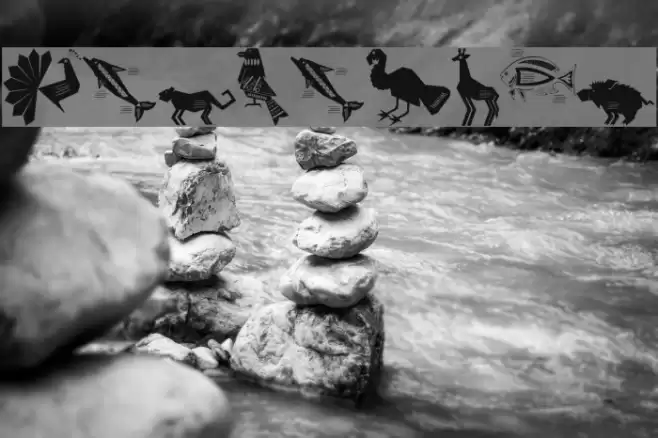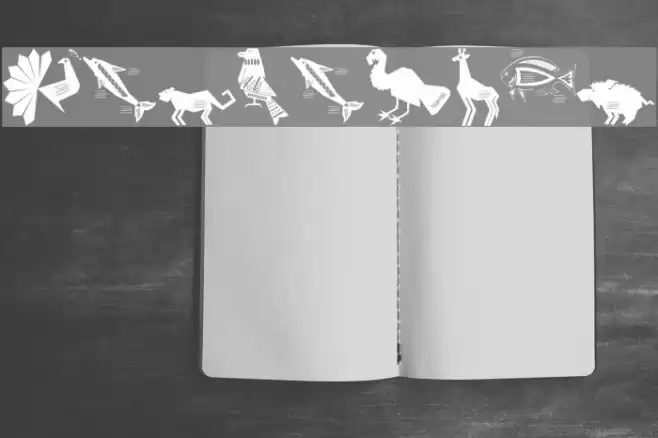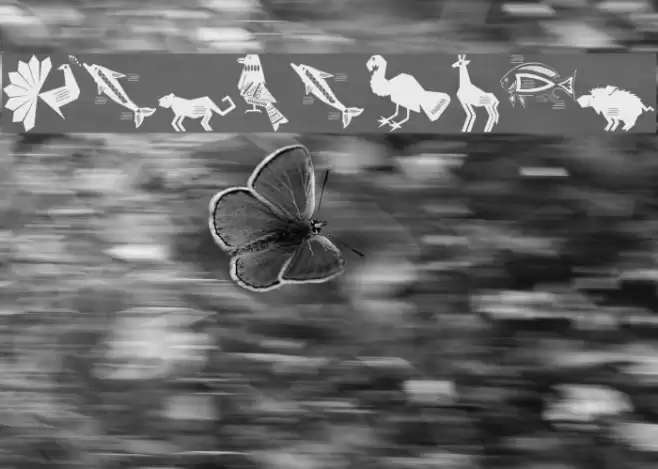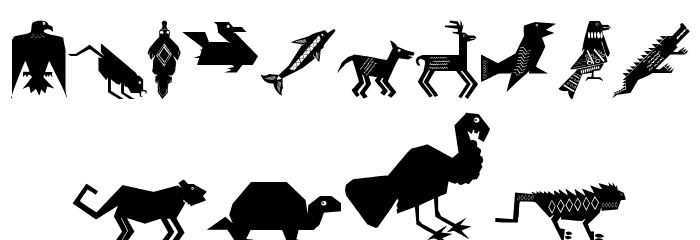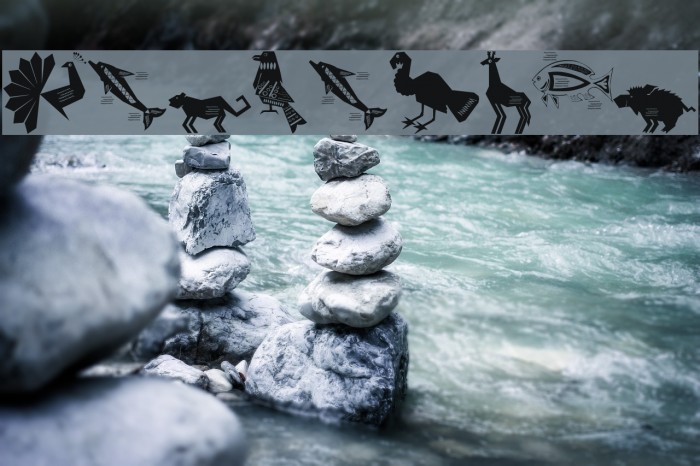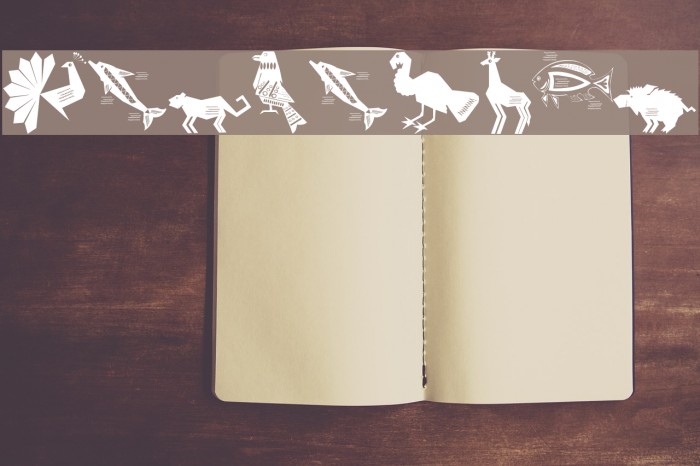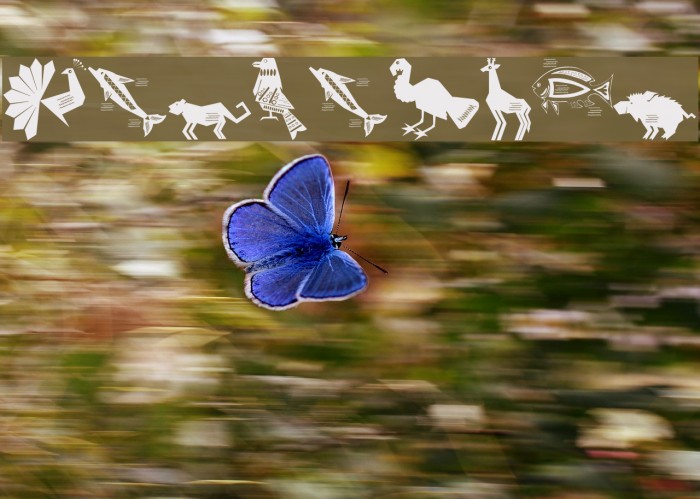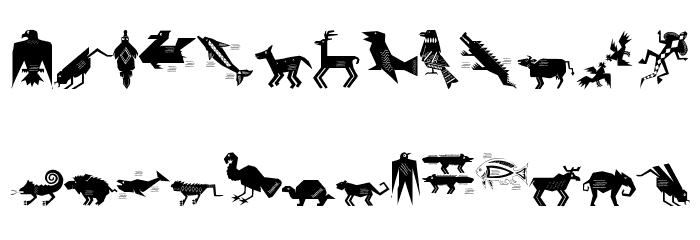
GetierTwo Font
GetierTwo Description
A highly decorative, animal-themed display font where each character is represented by a unique, stylized animal or object silhouette, rendered in bold, geometric black shapes with tribal and folk-art influences.
Animal silhouette display font with bold, geometric shapes from Uncategorized fonts.
- Proposed Projects: Children’s books, posters, educational materials, branding for zoos or wildlife organizations, themed event invitations.
- Overall Style: Decorative, Folk-Art, Tribal
- Use Case: Logos, Posters, Headlines, Themed Graphics